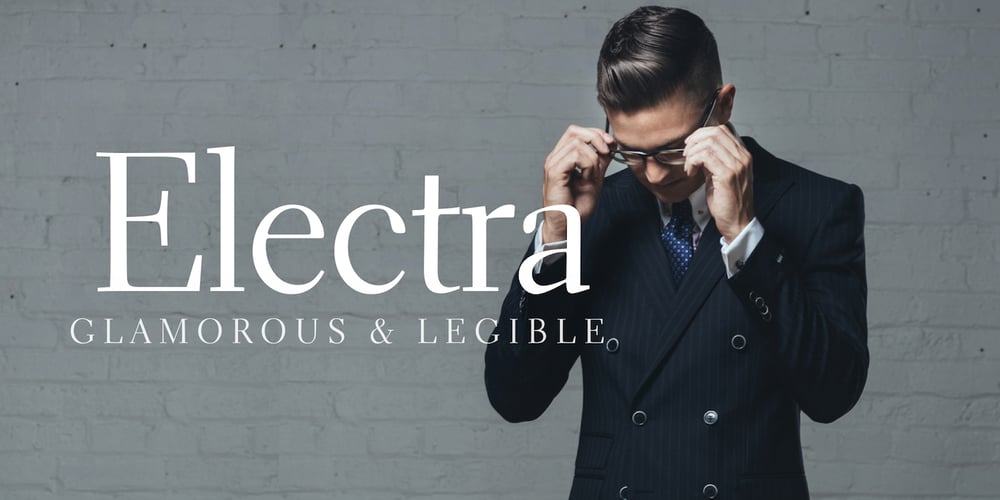
Electra
Electra font
Electra Font Family was designed by William Addison Dwiggins and published by Linotype. Electra contains 8 styles and family package options. Venecian Old Face fonts had a strong influence on typeface design in the 1930s and 1940s in England. Such influence is evident in the font Electra, designed by William A. Dwiggins for Linotype in 1935. Electra combines its classic roots with the Zeitgeist of the 1930s, also displaying characteristics of the Bauhaus and Art Deco styles.